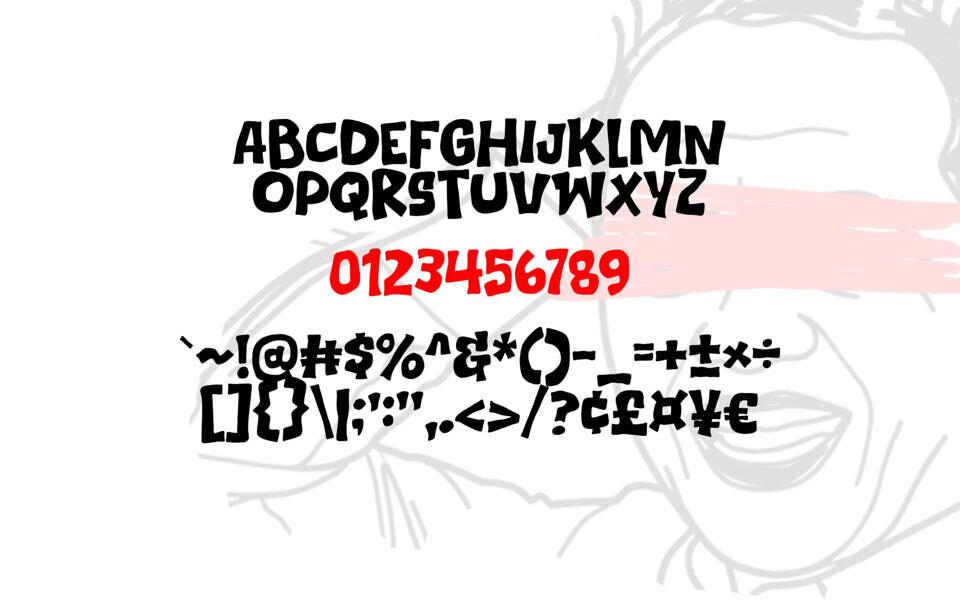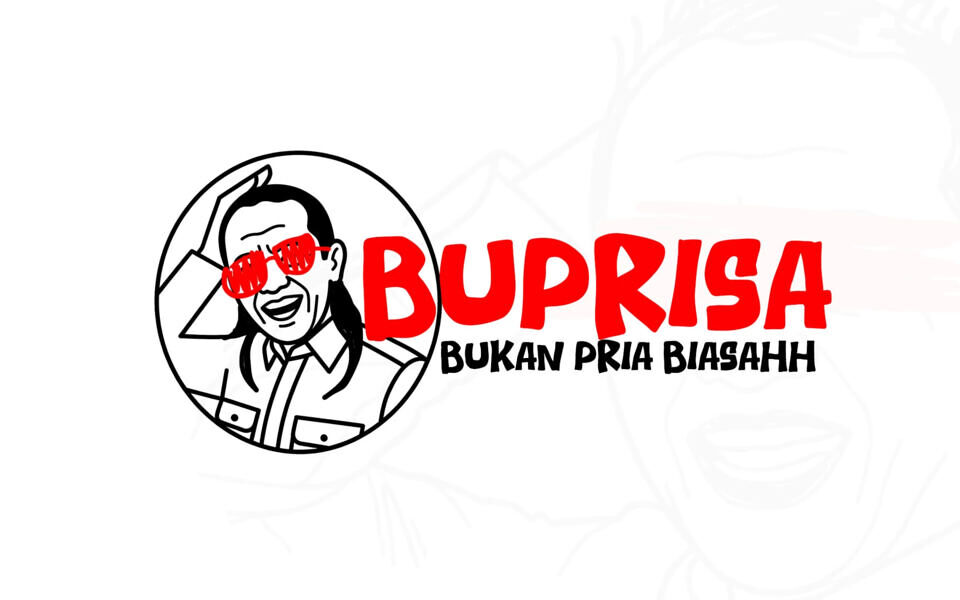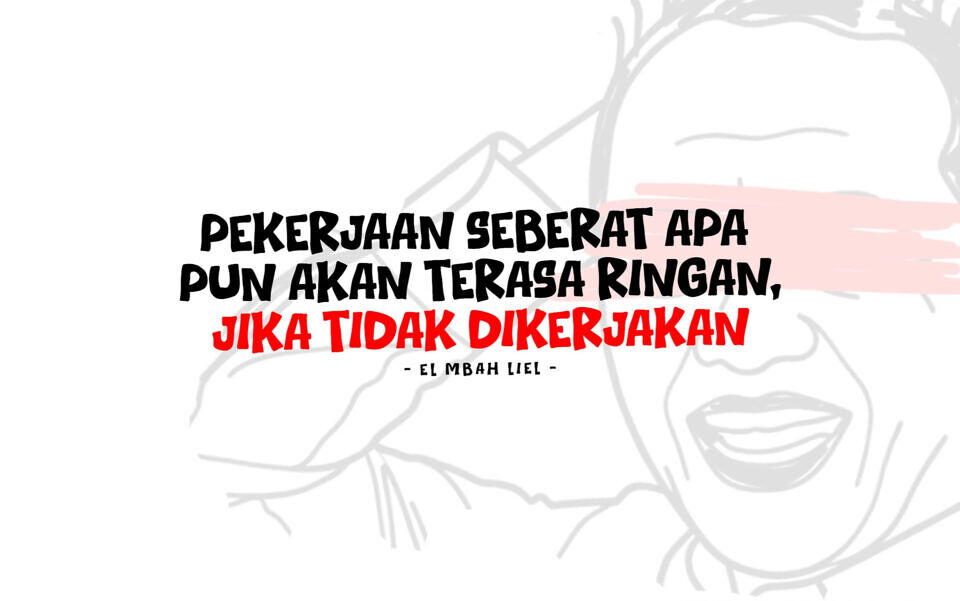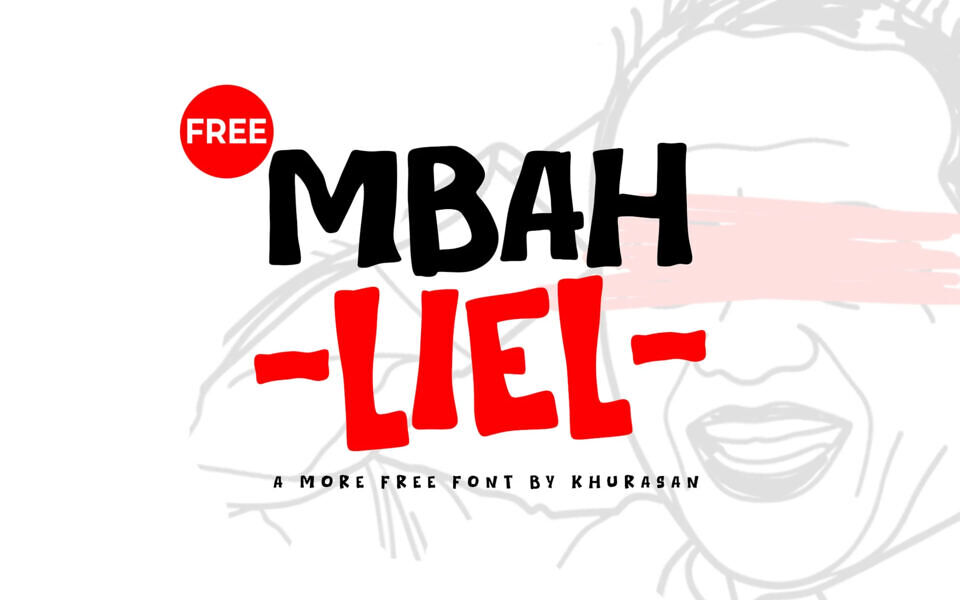
Mbah Liel Font
Mbah Liel is a bold, hand-drawn display font with a gritty, street-style aesthetic. Its thick strokes and playful, slightly irregular shapes give it a strong urban personality, making it ideal for posters, logos, and eye-catching headlines.
Inspired by graffiti and comic lettering, it adds energy and character to any design while maintaining clear readability for impactful visual projects.